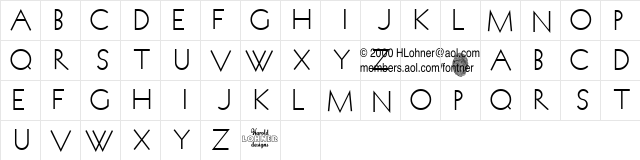
Koch Quadrat Fill Regular
Copyright: Koch Quadrat computer font ©2000 Harold Lohner " HLohner " http://members.aol.com/fontner Based on the letter constructions of Rudolf Koch (1876 1934). Also available: separate fonts of the outlines, inlines, guidelines, and fill.
Design Context for Koch Quadrat Fill
Koch Quadrat Fill is a composed and adaptable typeface that performs quietly and consistently across a wide range of design contexts.